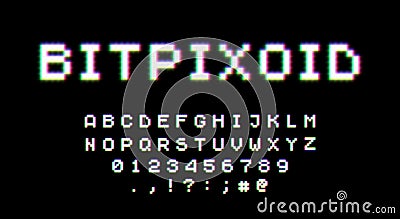
Retro 80s Styled Typeface With Neon Glow. Pixel Video Game 8bit Font. Set Of Retro Style Latin Capital Letters, Numbers Cartoon Vector
Retro 80s styled typeface with neon glow. Pixel video game 8bit font. Set of retro style latin capital letters, numbers Vector Illustration
Retro 80s styled typeface with neon glow. Pixel video game 8bit font. Set of retro style latin capital letters, numbers and punctuation signs.